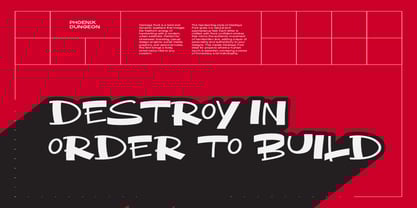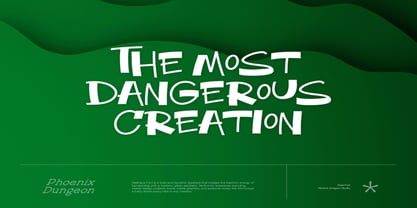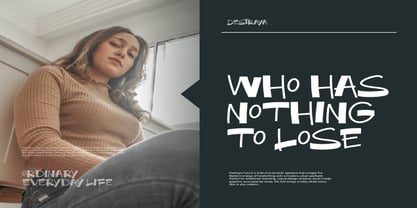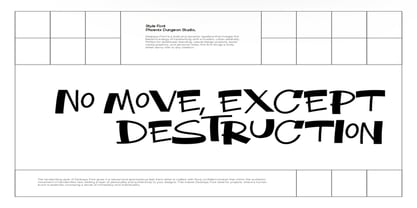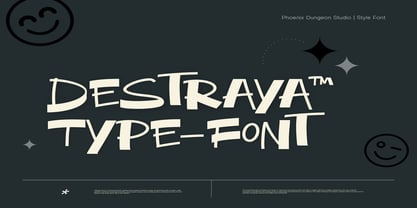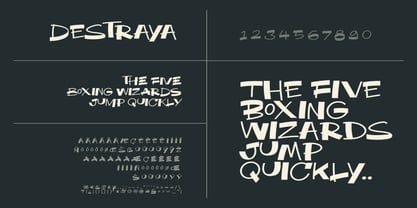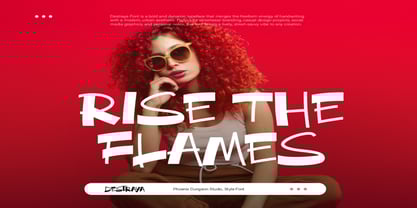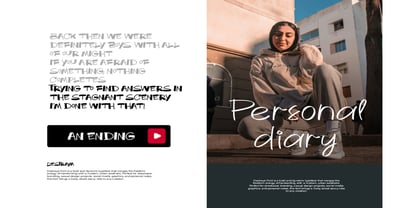
Destraya
by Phoenix Group
The Destraya Font Family was designed by Alif Naufal Muzakki and published by Phoenix Group. Destraya contains 1 styles. More about this family
Destraya Font blends the free spirit of handwriting with the precision of modern design. Bold, dynamic, and full of energy, this typeface exudes confidence and delivers strong visual impact. Inspired by contemporary urban aesthetics, Destraya is perfect for streetwear branding, social media campaigns, casual design projects, and a wide range of creative works.
Its expressive letterforms combine a relaxed feel with the strength of functional typography, making it ideal for eye-catching headlines as well as design elements that require a distinctive touch. With high versatility, Destraya performs beautifully across both print and digital media while maintaining readability at various sizes.
More than just a font, Destraya represents a dynamic modern lifestyle—ready to elevate visual identity and add value to any design project.